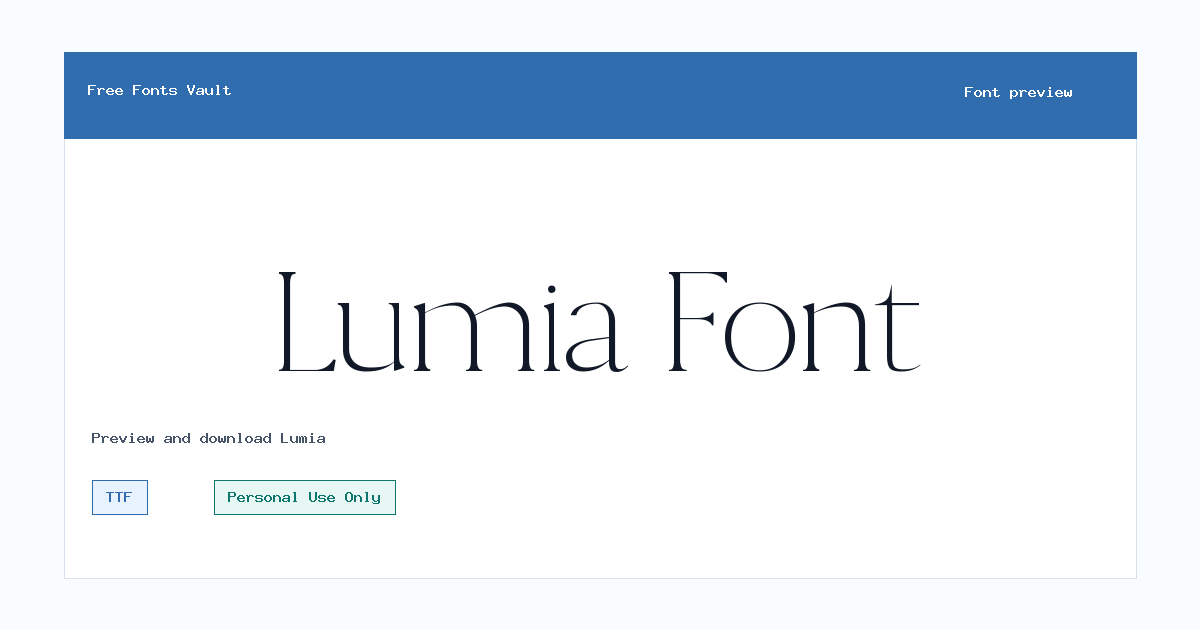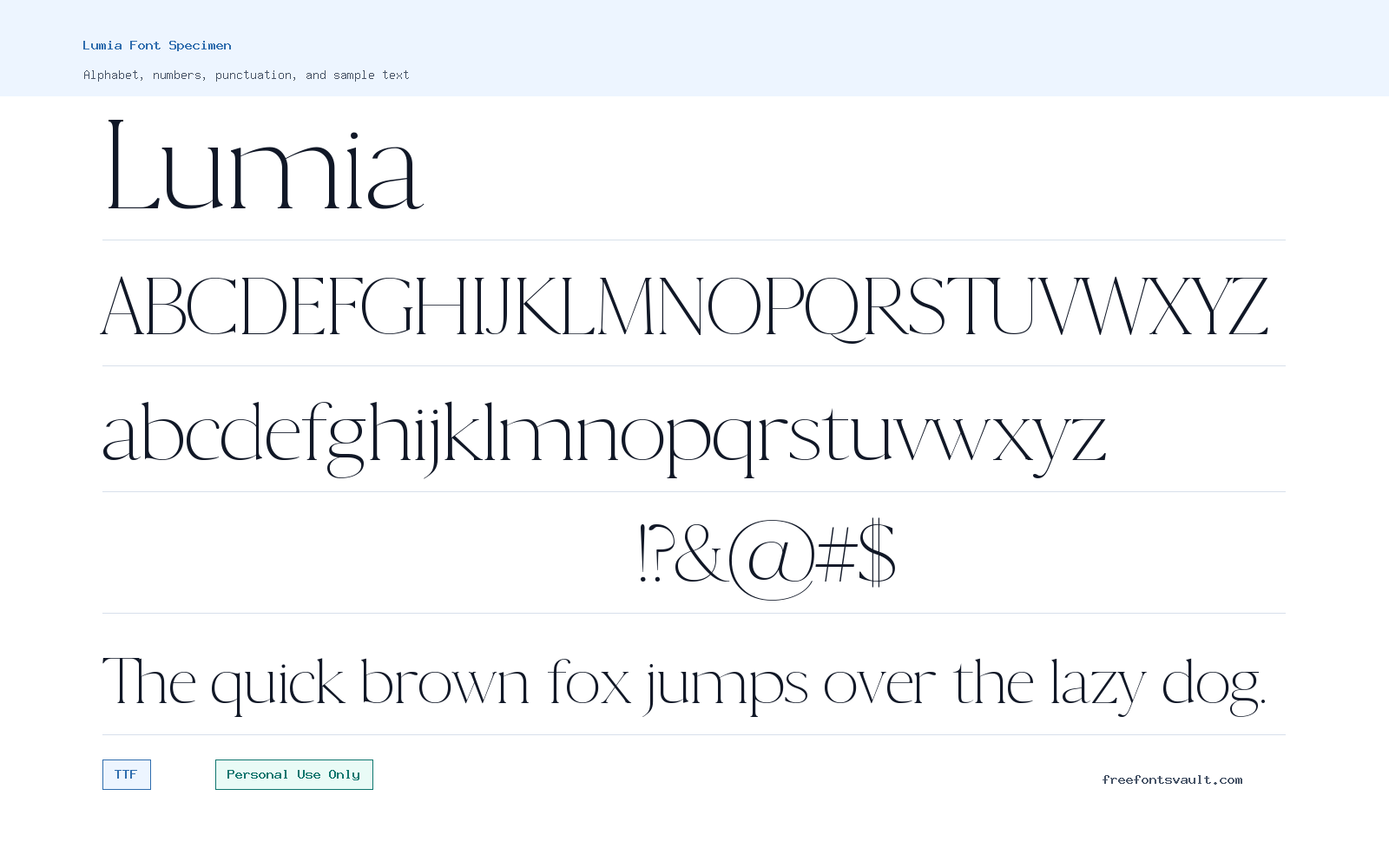
Lumia
Lumia Font
Lumia is a refined display-style font with thin strokes, tall letterforms, and a quiet serif look. It works best when the text is short, spacious, and meant to feel polished rather than loud.
About Lumia Font
Lumia has a delicate, high-contrast appearance that suits names, titles, invitations, fashion-style graphics, simple branding mockups, and decorative headings. The letter shapes feel slim and graceful, with enough personality to stand out in a preview without becoming overly ornate. Because the design is light and narrow in places, it is strongest at medium to large sizes where the thin details can stay clear.
Use Lumia for words or short lines first, then test longer phrases before committing to a design. It can look elegant in all caps, but lowercase text gives it a softer editorial feel. For pairing, place it beside a clean sans serif or a simple text serif so the page does not become too fragile. Avoid using it for body copy, small labels, dense menus, or anything that needs fast scanning. The included file is a TTF regular style, so it is easy to test in many design apps, but it does not offer a full multi-weight family.
• Best suited to large headings, names, logos, quotes, and decorative short text
• Thin strokes and tall forms that need enough size and spacing to stay readable
• Limited character coverage, so preview numbers, punctuation, and special characters before using it
• Wedding names, invitation headings, and elegant event graphics
• Fashion, beauty, boutique, or portfolio-style title text
• Logo mockups, monograms, and short wordmarks for personal concepts
• Quotes, social posts, blog headers, and simple editorial graphics
Is Lumia good for body text?
It is not the best choice for long paragraphs. Its thin, decorative look works better for titles, names, and short display text.
Does Lumia include numbers?
The tested font file did not show standard digits in its basic character map, so check the preview carefully if your design needs numbers.
What should I pair with Lumia?
Use a clean sans serif or simple readable serif for supporting text. Let Lumia handle the main title or highlight word.